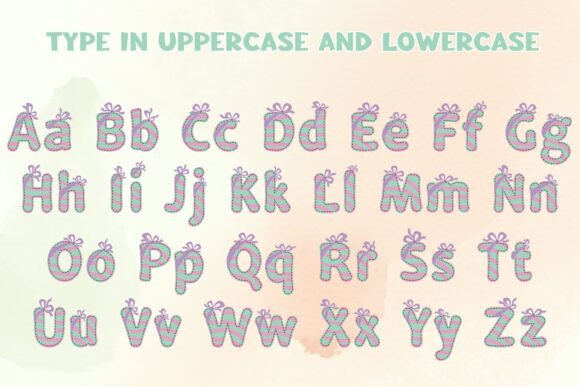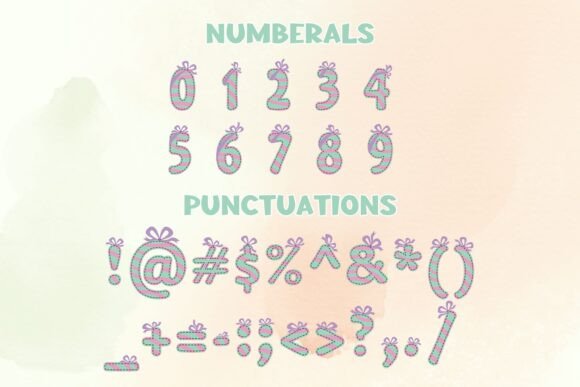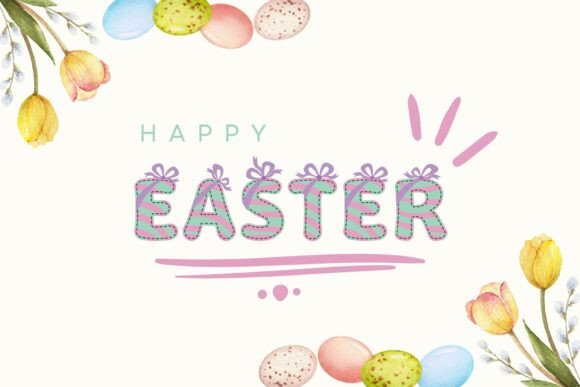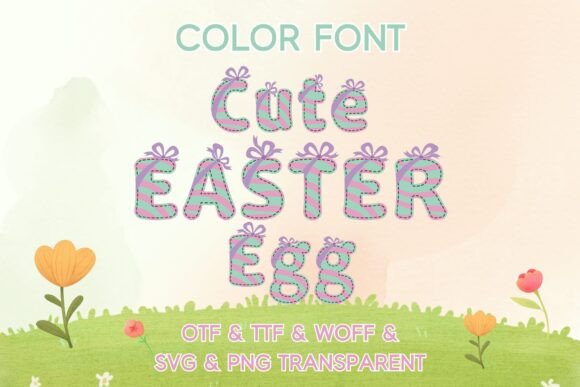
Cute Easter Egg Font: Elevate Your Designs with a Touch of Easter Charm
Are you looking for a font that can add a playful and festive touch to your designs? Look no further than the Cute Easter Egg font! This adorable font is perfect for designers and crafters who want to create eye-catching projects for Easter or any other occasion. In this article, we’ll introduce you to the Cute Easter Egg font, its features, and how it can transform your designs into mesmerizing masterpieces.
Introducing Cute Easter Egg Font
The Cute Easter Egg font is a delightful addition to any design project. Its playful and whimsical style is sure to capture the attention of your audience and leave a lasting impression. Whether you’re working on t-shirt designs, mug designs, digital designs, crafts, cards, or any other project, this font is sure to look fantastic. The Cute Easter Egg font is designed to bring a touch of Easter charm to your creations, making them perfect for seasonal designs or everyday use.
Variations for Convenience and Flexibility
With the Cute Easter Egg font, the design possibilities are endless! Here are a few ideas to get you started:
- T-shirt designs: Create adorable Easter-themed t-shirts for kids and adults alike.
- Mug designs: Add a touch of Easter charm to your mug designs, perfect for springtime or as a gift.
- Digital designs: Use the Cute Easter Egg font in your digital designs, such as social media graphics, blog posts, or email newsletters.
- Crafts: Create handmade Easter cards, gift tags, or decorations using the Cute Easter Egg font.
- Cards: Design beautiful Easter cards for family and friends.
Tips for Using Cute Easter Egg Font
To get the most out of the Cute Easter Egg font, here are a few tips:
- Experiment with colors: The Cute Easter Egg font comes in color, so don’t be afraid to experiment with different colors and combinations.
- Mix and match: Pair the Cute Easter Egg font with other fonts or graphics to create unique and eye-catching designs.
- Use it in combination with other Easter-themed elements: Add the Cute Easter Egg font to your Easter-themed designs, such as Easter eggs, bunnies, or spring flowers.
In conclusion, the Cute Easter Egg font is a must-have for designers and crafters looking to add a touch of Easter charm to their projects. With its playful and whimsical style, versatility, and convenience, this font is sure to transform your designs into mesmerizing masterpieces. Whether you’re working on t-shirt designs, mug designs, digital designs, crafts, cards, or any other project, the Cute Easter Egg font is the perfect choice. So why wait? Get creative with the Cute Easter Egg font today and make your designs egg-stra special!